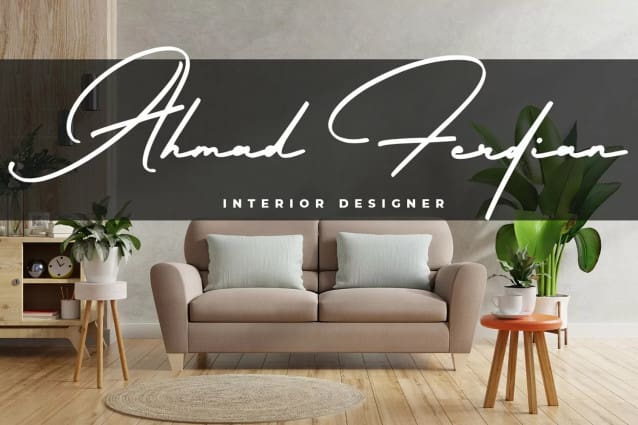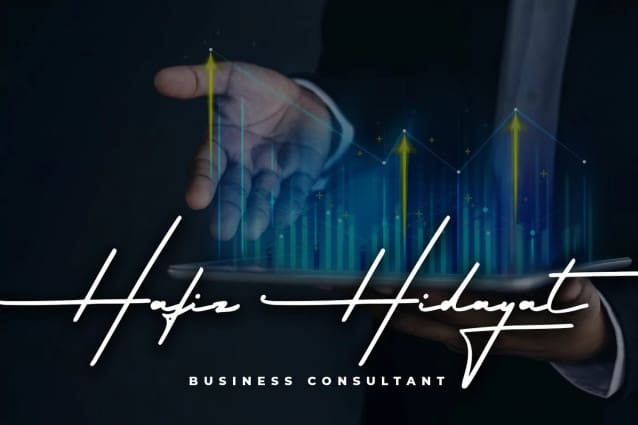
Tunontaka Signature Font
Tunontaka Signature Font is a simple signature font. It is great for branding, t-shirt designs, tote bag designs, cards, banners, social media, and more.